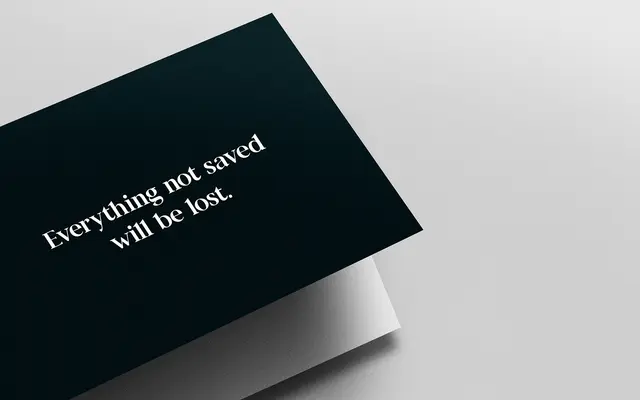
Staat
Regular Bold Italic · Timo Kuilder
A high-contrast display serif by Timo Kuilder, with pointed serifs and sharp terminal cuts, available in Bold and Bold Italic only.
Sharp terminal cuts and pointed serifs give this two-style family a modern, slightly severe character suited to headlines and display work. The basic Latin character set covers 310 glyphs including diacritics, ligatures and currency symbols, with OpenType features included. Tight spacing and kerning reinforce its precision, while deliberately shortened 'f' and 'j' descenders prevent gaps in web rendering.
Staat features sharp terminal cuts, pointed serifs and high contrast strokes, placing it firmly in the modern or Didone-influenced serif tradition used primarily for display settings.